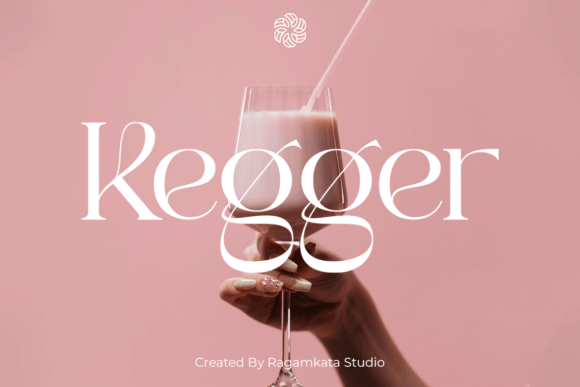
Unleash the Charm of Kegger Font: Your Gateway to Design Excellence
In the realm of typography, few fonts possess the elegance, versatility, and timeless appeal of the Kegger Font. As a captivating serif font, Kegger stands apart with its bold lettering, intricate details, and a captivating fusion of classic and modern aesthetics. Prepare to be enthralled as Kegger transforms your designs into works of art.
With Kegger, you'll embark on a journey of boundless creativity. Welcome to a world where words dance with grace, where messages resonate with charm, and where designs exude an air of sophistication. Whether you're crafting exquisite wedding invitations, designing high-end product packaging, or seeking to create captivating promotional materials, Kegger is your ultimate companion.
Let Kegger elevate your brand's image to new heights. Its regal presence commands attention, exuding a sense of luxury and exclusivity that will leave your audience spellbound. Its versatility shines through in logo designs and website headers, adding a touch of creative elegance to your digital creations.
Immerse yourself in the boundless applications of Kegger. It's the perfect choice for greeting cards, where heartfelt messages deserve a font that speaks volumes. Its decorative details bring warmth and charm to personal invitations, making every occasion a memorable one. Unleash your creativity in the world of posters and flyers, where Kegger's bold presence captivates onlookers and entices them to engage with your message.